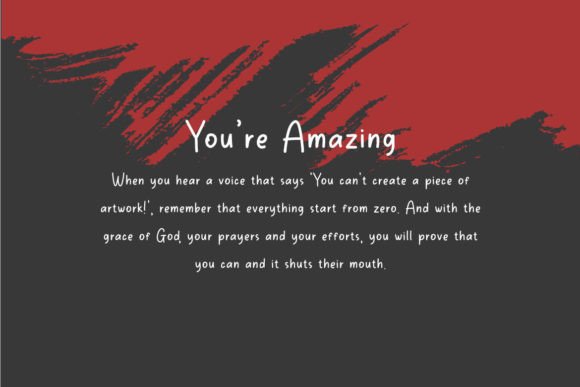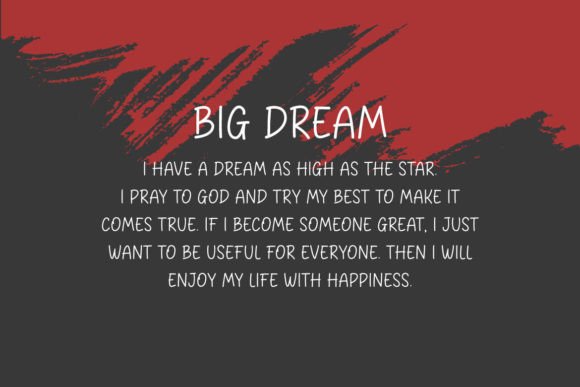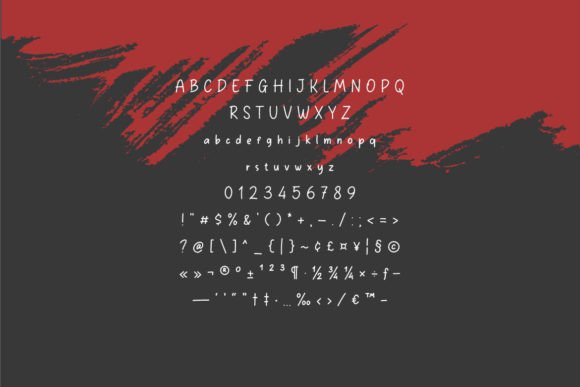
Discover the Charm of Greyca Font: A Versatile Handwritten Font for Creative Projects
In the world of typography, fonts play a crucial role in conveying the tone and personality of a brand, product, or creative project. Among the numerous fonts available, the Greyca font stands out as a unique and versatile handwritten font that can elevate various design projects. In this article, we’ll explore the features and benefits of the Greyca font, and how it can be used in a wide range of applications.
What is Greyca Font?
**Greyca** is a small handwritten font that exudes a sense of simplicity and elegance. Its subtle charm makes it an excellent choice for designers and crafters looking for a font that can add a personal touch to their projects. Greyca’s handwritten style gives it a friendly and approachable feel, making it perfect for designs that require a human touch.
Key Features of Greyca Font
- Handwritten style: Greyca’s handwritten font style gives it a unique and personal feel that sets it apart from other fonts.
- Versatility: Greyca can be used in a wide range of projects, from comic books and posters to social media content and logos.
- Easy to read: Despite its small size, Greyca is easy to read, making it an excellent choice for body text and captions.
- Customizable: Greyca’s simplicity makes it easy to customize, allowing designers to experiment with different colors, textures, and styles.
Uses of Greyca Font
Greyca’s versatility makes it an excellent choice for various design projects, including:
- Comic books and graphic novels: Greyca’s handwritten style is perfect for comic book titles, captions, and dialogue.
- Posters and flyers: Greyca can add a personal touch to posters and flyers, making them more eye-catching and engaging.
- School projects: Greyca is an excellent choice for school projects, such as presentations, reports, and essays.
- Book titles and covers: Greyca can be used to create beautiful and eye-catching book titles and covers.
- Advertisements: Greyca’s friendly and approachable feel makes it perfect for advertisements that require a personal touch.
- Social media content: Greyca can be used to create engaging social media content, such as captions, quotes, and graphics.
- Logos and branding: Greyca’s simplicity and elegance make it an excellent choice for logos and branding projects.
Tips for Using Greyca Font
To get the most out of Greyca font, here are some tips to keep in mind:
- Experiment with colors: Greyca’s simplicity makes it easy to experiment with different colors and textures.
- Mix and match: Combine Greyca with other fonts to create a unique and visually appealing design.
- Pay attention to size: Greyca is a small font, so make sure to adjust its size according to the project’s requirements.
- Use it consistently: Use Greyca consistently throughout a project to create a cohesive and professional look.
In conclusion, Greyca font is a versatile and charming handwritten font that can elevate various design projects. Its simplicity, elegance, and friendliness make it an excellent choice for designers and crafters looking for a font that can add a personal touch to their work. With its wide range of uses and easy customization options, Greyca is an excellent addition to any designer’s toolkit.